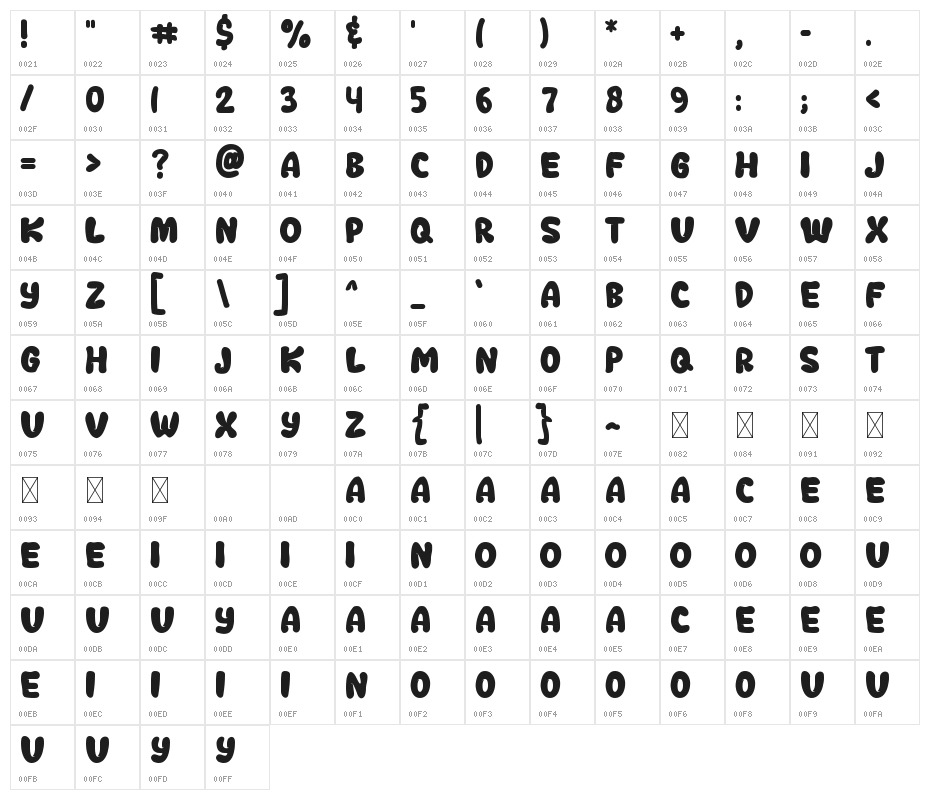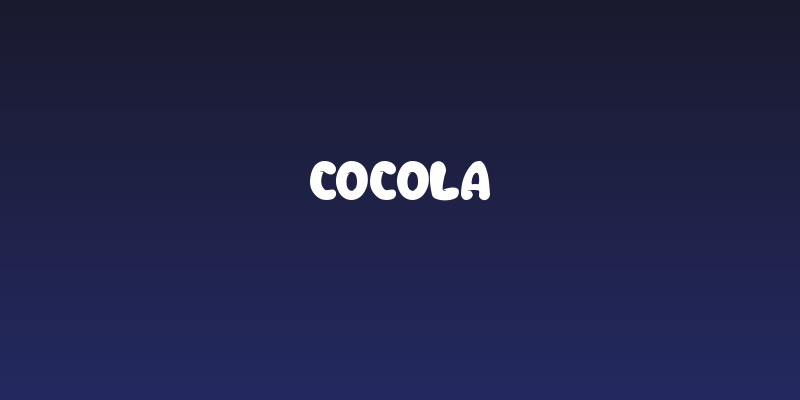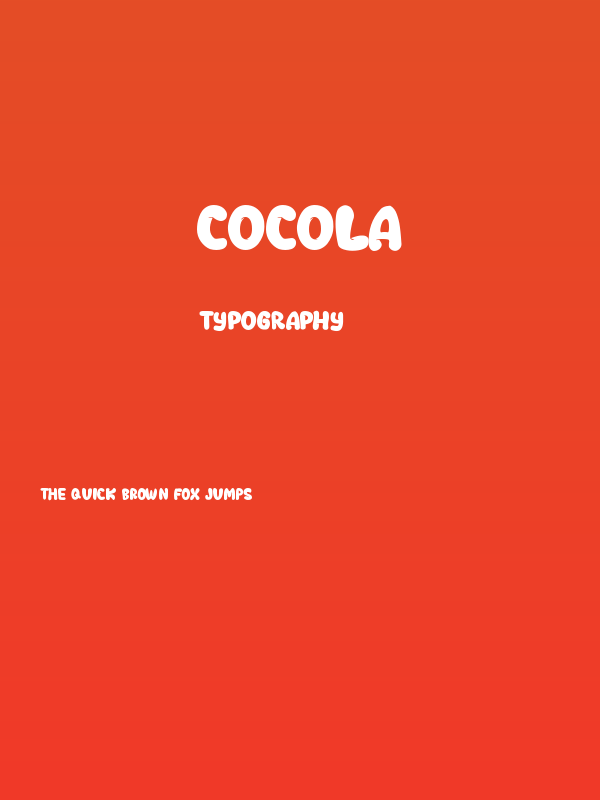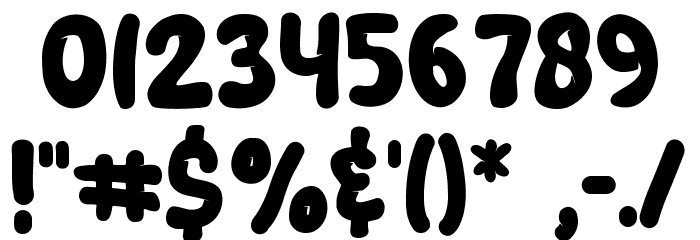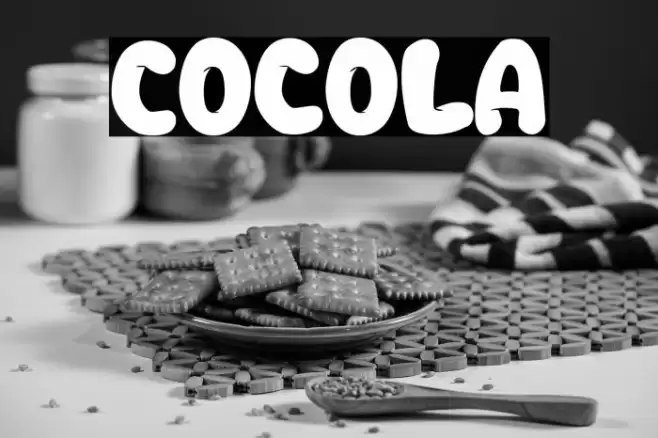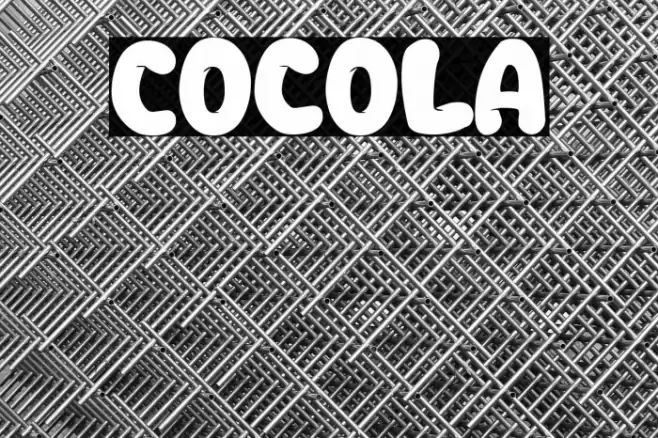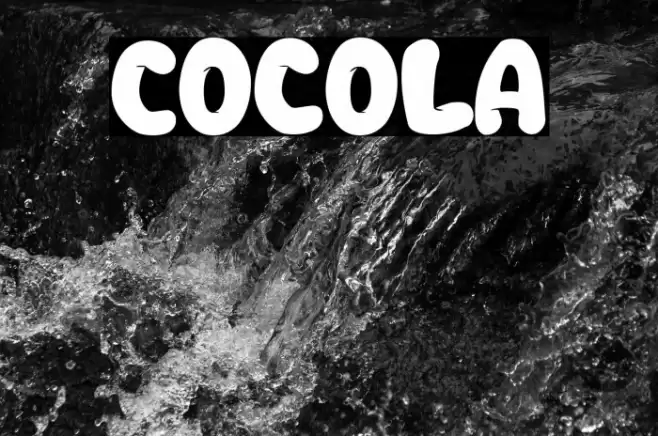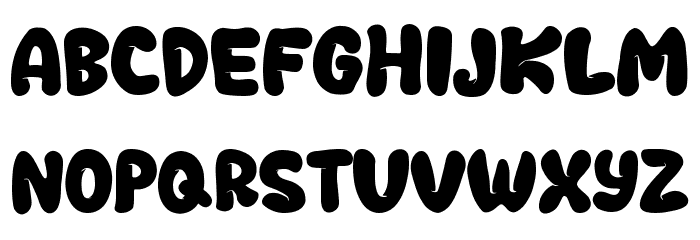
Cocola Font
Cocola Description
This playful and bold font features thick, rounded characters that exude a sense of fun and approachability. The letters are uniformly bold with a consistent stroke width, creating a cohesive and friendly appearance. The rounded edges and smooth curves give it a soft, inviting look, making it ideal for projects that require a touch of whimsy and warmth. The font maintains a consistent weight throughout, ensuring readability while adding a unique character to any design. Its playful nature makes it suitable for a variety of creative applications.
| Proposed Projects | Ideal for children's books, playful branding, party invitations, and casual posters. |